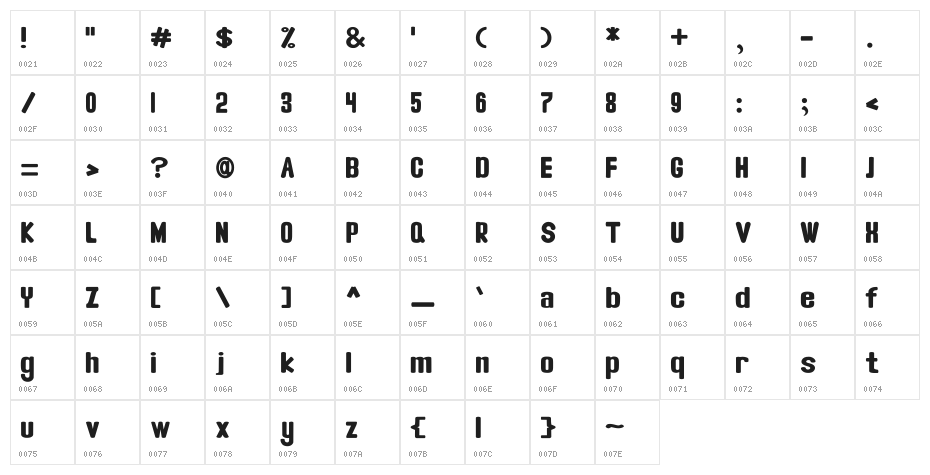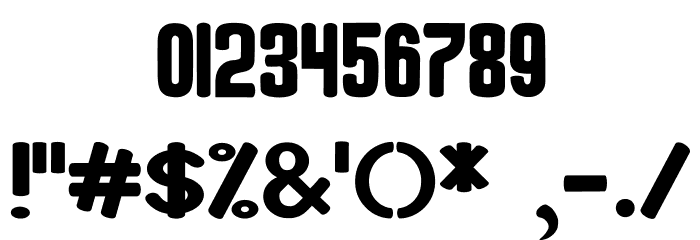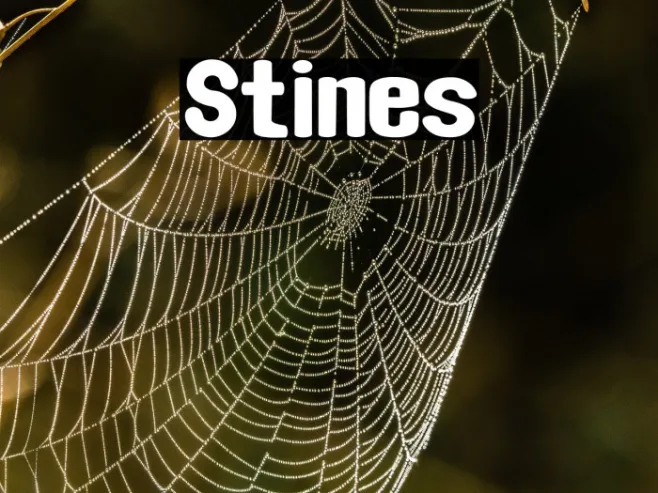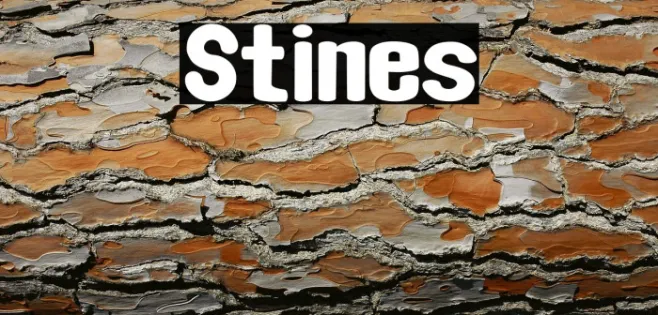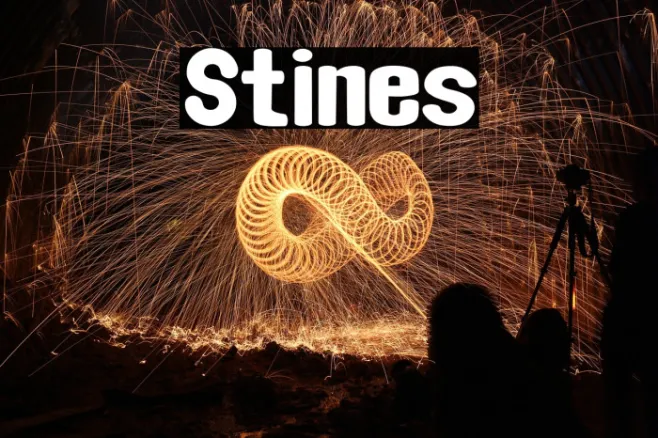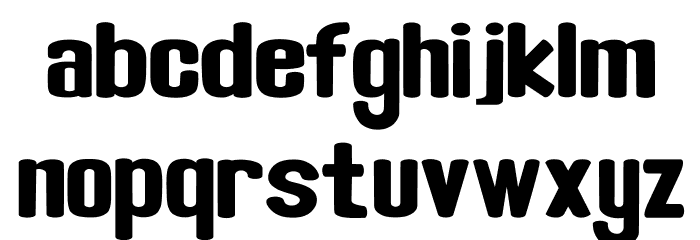
Stines Font
Stines Description
This font features bold, rounded characters with a strong presence, making it ideal for attention-grabbing designs. The uppercase and lowercase letters maintain a consistent thickness, contributing to a cohesive look. The numerals are equally bold, ensuring readability and impact. Special characters are designed with the same boldness, providing a uniform appearance across all glyphs. The overall style is modern and playful, suitable for a variety of creative applications.
STINES UPPERCASE
STINES LOWERCASE
STINES OTHER CHARS
| Proposed Projects | Ideal for posters, branding, packaging, and headlines where a strong, modern look is desired. |